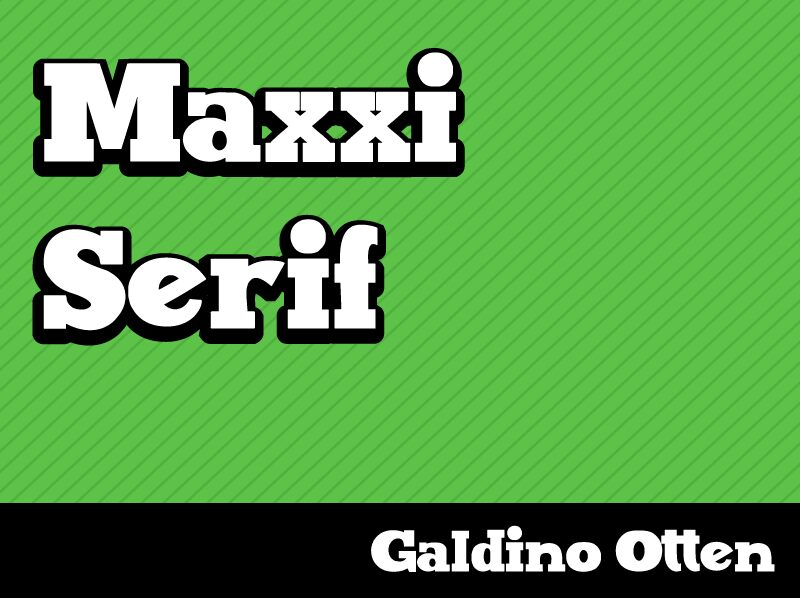
Maxxi Serif Outline Bold by Galdino Otten is a free 3D display font with broad slab serifs and a blunt, collegiate build. Deep offset shading gives every letter a raised, sign-painted edge. Rounded joins keep the sturdy forms lively.
A sports bar or casual apparel label could adopt its upbeat retro identity. Team merchandise and arcade graphics make good use of the badge-like silhouette. On magazine covers, it turns a title into an illustrated masthead.